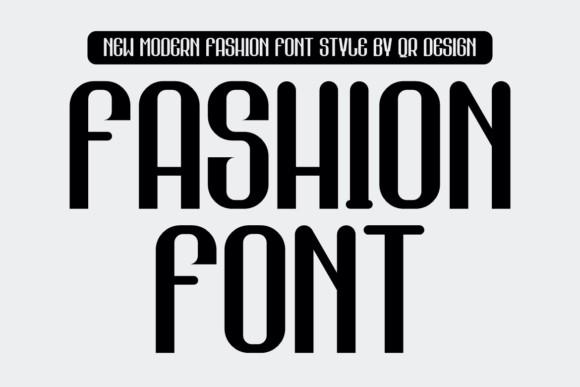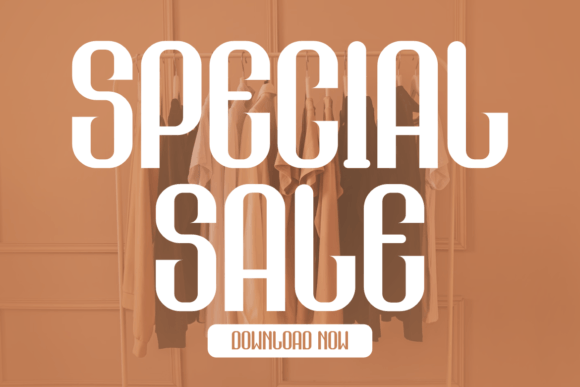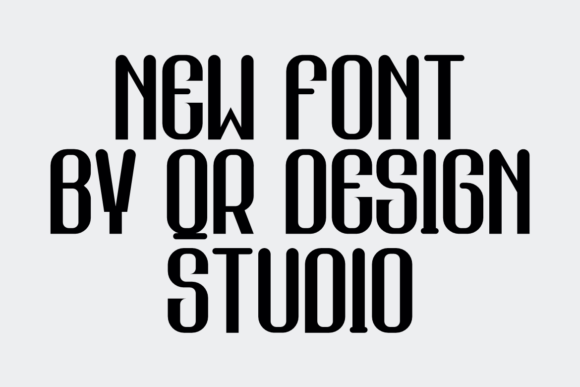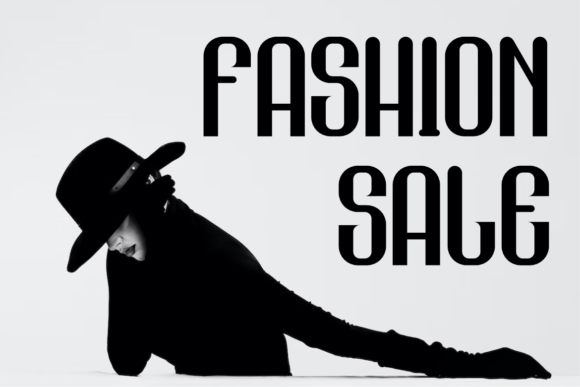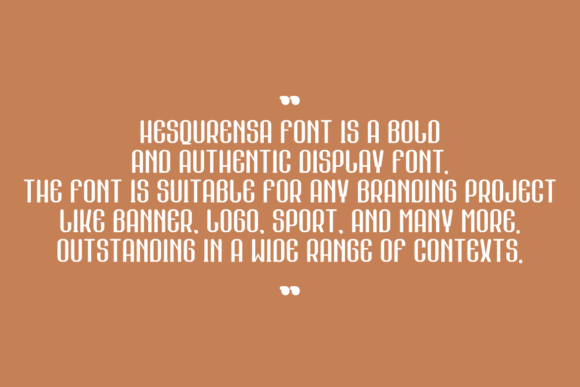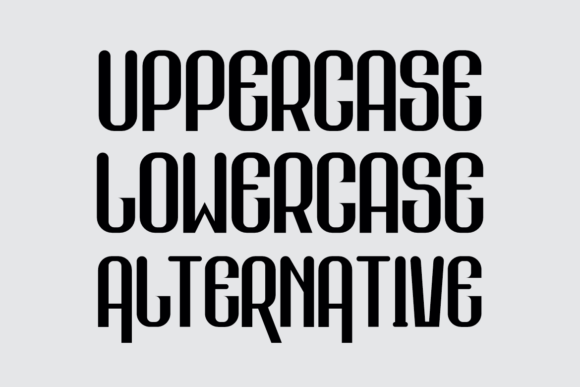
Introduction to Hesqurensa Font
Hesqurensa is a cool and stylish display font.
Its sleek and natural look makes it suitable for a wide spectrum of applications .
Key Features of Hesqurensa Font
Why Choose Hesqurensa Font?